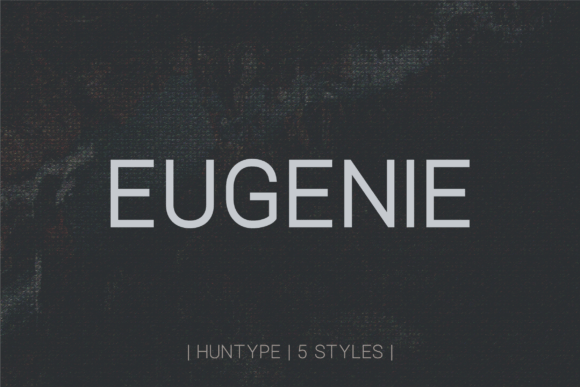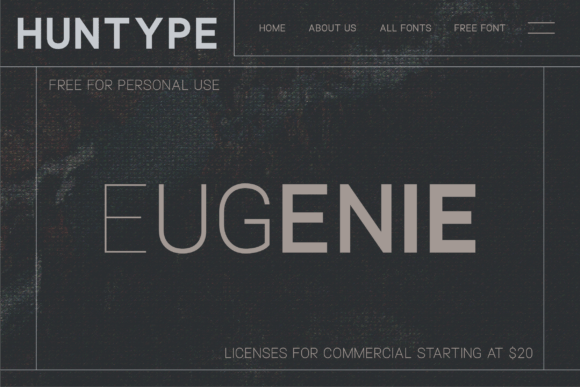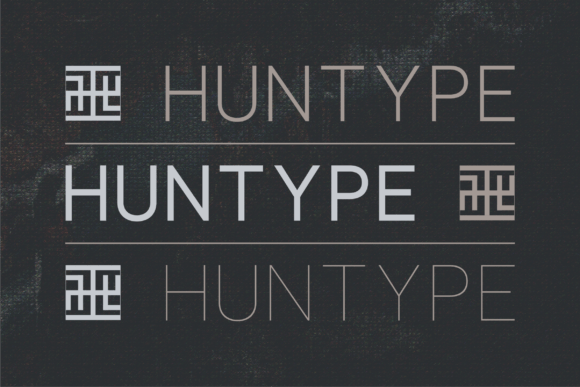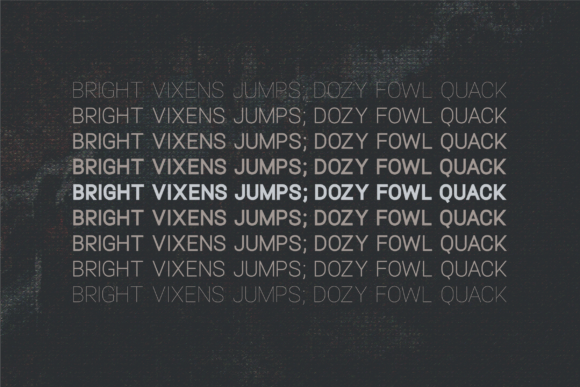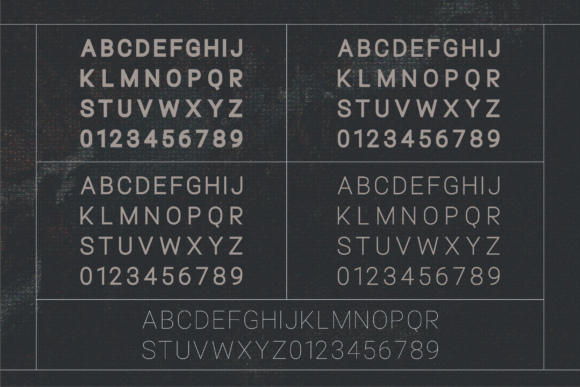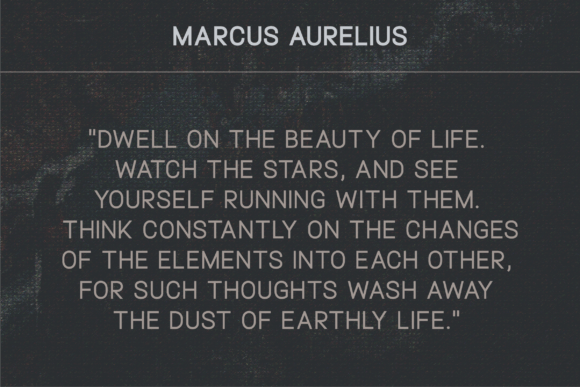
Discover the Art of Elegant Typography
Have you ever found yourself stuck on a design project, searching for the perfect font to bring your vision to life? The struggle is real, but fear not, dear creatives! We’re excited to introduce you to the Eugenie Font Family, a game-changing typography solution that’s about to revolutionize the way you design.
This beautifully crafted font family offers five distinct weights, from the delicate THIN to the bold BLACK, giving you the flexibility to create stunning visuals that exude elegance and sophistication. Whether you’re working on a high-end branding project or a trendy blog post, Eugenie Font is the perfect companion to help you achieve your creative goals.
With Eugenie Font, you’ll have access to a wide range of creative possibilities, making it an invaluable asset for designers and content creators. Its seamless blend of modernity and timelessness ensures that your projects will stand out from the crowd and leave a lasting impression.
Eugenie Font Key Features
- Font Family: Eugenie Font is a sans-serif typeface.
- Unique Characteristics: Eugenie Font features a clean and modern design with a subtle rounded edge, making it suitable for a wide range of applications, including digital interfaces and print materials.
- Font Weight: Available in light, regular, and bold weights, allowing for flexibility in design.
Eugenie Font Review
I recently had the chance to work with the Eugenie font, and I have to say it’s a great addition to any designer’s toolkit. Here’s my honest review:
- ✨ Elegant and refined feel, perfect for high-end branding and packaging.
- ✨ Excellent legibility, even at smaller font sizes.
- ✨ Good range of weights and styles, from light to bold.
- ⚠️ Limited language support, which may be a concern for multilingual projects.
- ⚠️ Not as versatile as some other fonts, may not be suitable for bold or edgy designs.
Overall, I’m impressed with the Eugenie font. It’s a solid choice for designers who need a high-end, elegant font for their projects. While it may not be the most versatile font, it excels in specific areas and can be a great addition to your font library. With some limitations in mind, I’d definitely recommend giving Eugenie a try.
Tip: Use Eugenie Font to add a touch of elegance to your designs, especially in headings and titles.
Eugenie Font is perfect for:
- Headings and titles in designs and documents.
- Creating beautiful typography in graphics and illustrations.
- Adding a touch of elegance to presentations and documents.
Embracing Eugenie Font
Create a beautiful wedding invitation featuring the Eugenie Font. The elegant script style of Eugenie Font will add a touch of sophistication and romance to your invitation design.